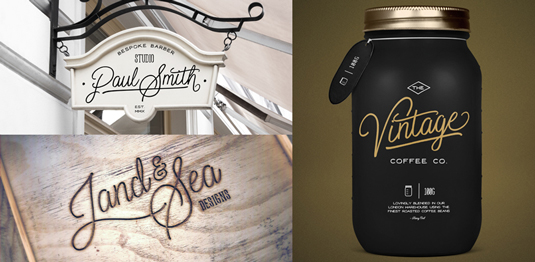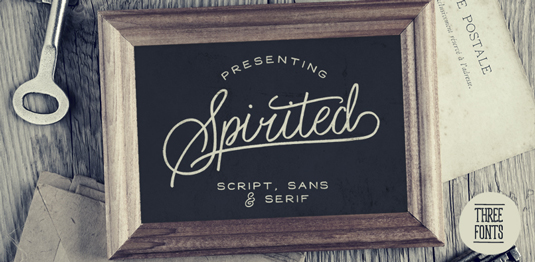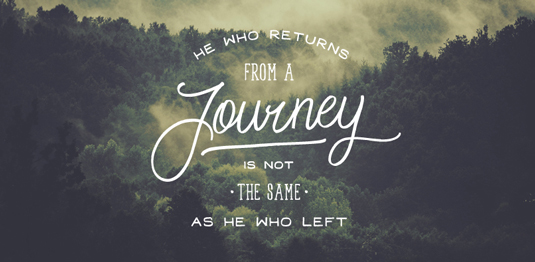
Font of the day: Spirited
Every day we showcase the best fonts on the web. Today it's Spirited from Set Sail Studios.
Spirited from Set Sail Studios
Today's font of choice is Spirited, a hand-made typeface developed by the team at creative agency Set Sail Studios. With a very distinct retro style, this Spirited is perfectly suited to hand-lettered quotes, logos and printed designs with a rustic, personal touch.